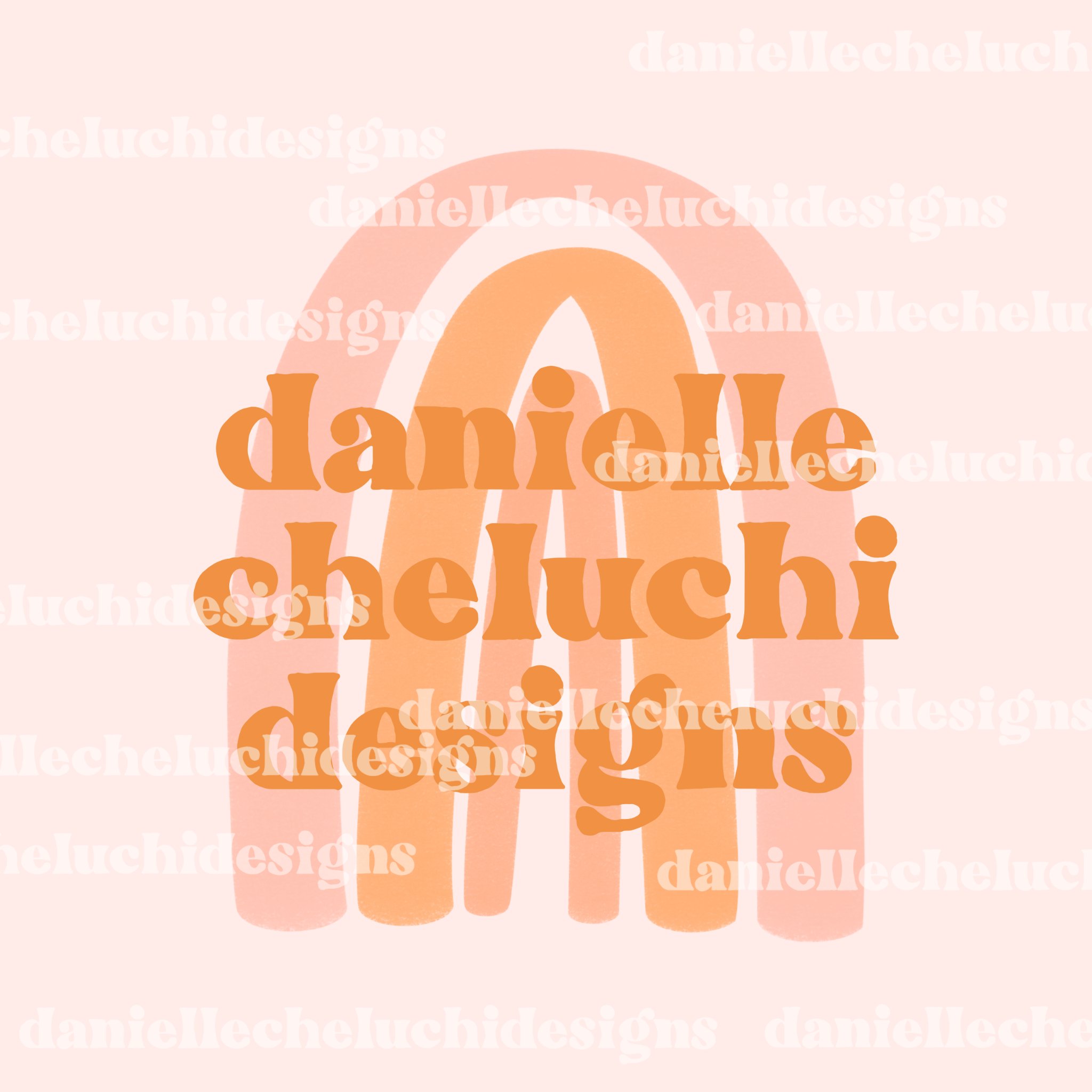
Introducing Old School, a dreamy hand-drawn display retro groovy font. It's a versatile font with plenty of ligatures and stylistic alternates, with possibilities for use for all your projects.
Old School